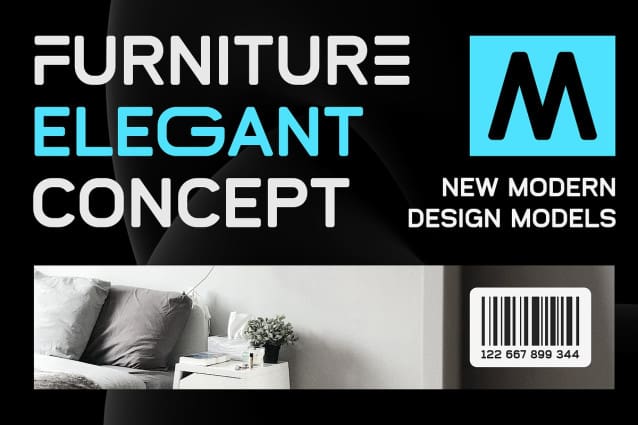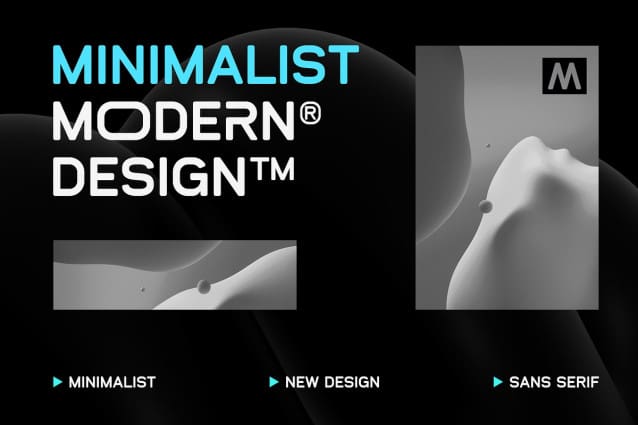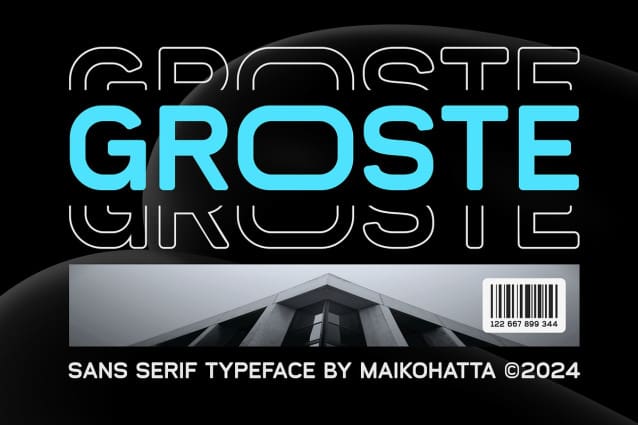
Groste Font
Groste Font – Sans Serif Typeface is a bold and authentic display font. The font is suitable for any branding project like logo, Template Design, esport, and many more. outstanding in a wide range of contexts.